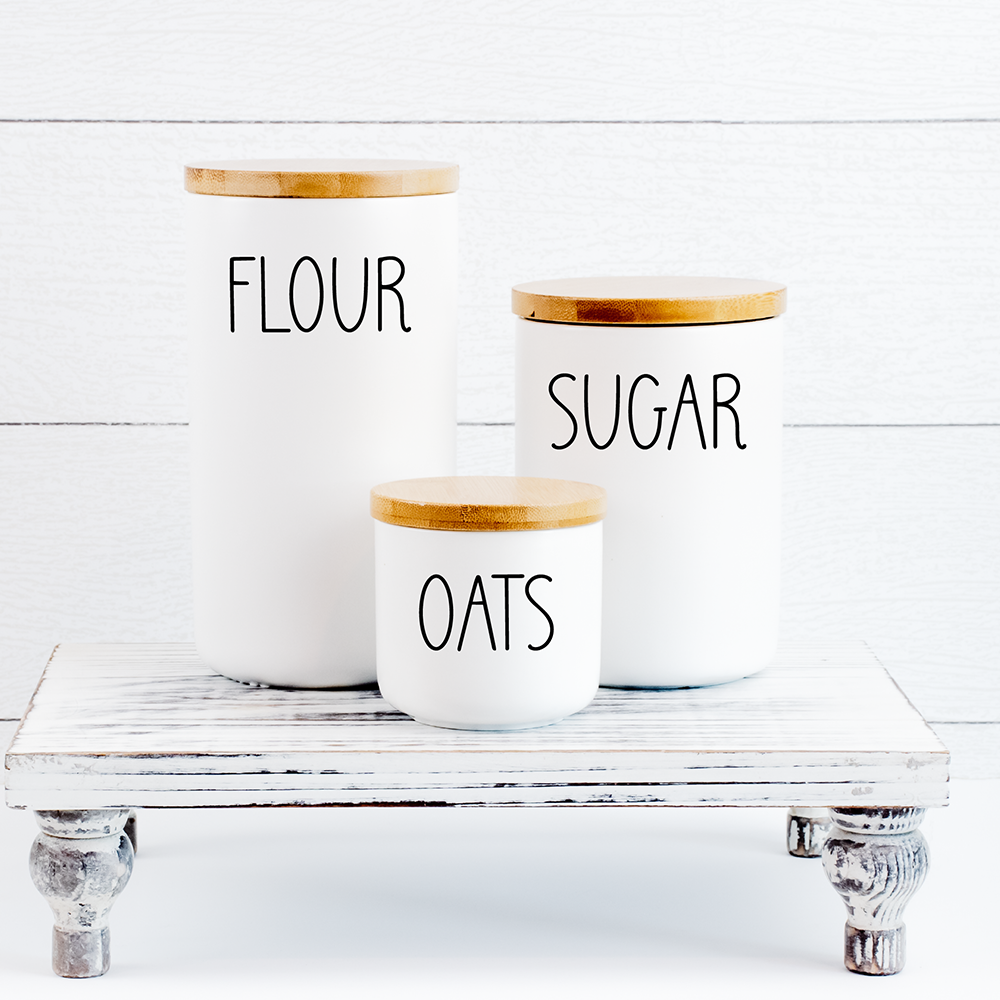
"Summer Farmhouse" Farmhouse font. Perfect for signs! This is an all-caps font.
Summer Farmhouse is a tall and skinny sans serif font that will compliment any script font. It was made with rustic farmhouse signs and the cottagecore aesthetic in mind. Check out our other farmhouse style fonts that pair perfectly with this one!